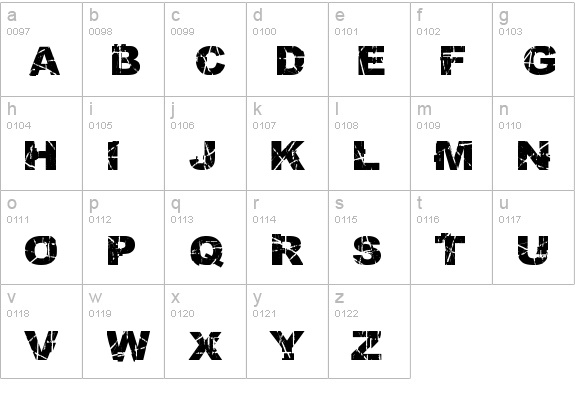
Skratch Punk Font Details
Introducing Skratch Punk, the rebellious and edgy font that will bring an instant punk-rock vibe to your designs! This font is all about breaking the rules, embracing individuality, and making a bold statement. With its jagged and distressed letterforms, Skratch Punk is the perfect choice for creating designs that scream attitude and nonconformity. But what makes Skratch Punk even more exciting is that it is available for free! Yes, you read that right - this amazing font can be downloaded without any cost. FontsMarket.com is the place to go to get your hands on this rebellious typeface. Simply head over to the website, and you can freely download Skratch Punk to start adding that punk-rock touch to your projects. With Skratch Punk, you can create eye-catching logos, album covers, posters, t-shirt designs, and more. Its distressed and grungy style adds a raw and authentic feel to any design, making it ideal for bands, clubs, and brands that want to stand out from the crowd. Let your creativity run wild with this free font and let your designs scream punk-rock passion. So, what are you waiting for? Don't miss out on the opportunity to download Skratch Punk for free at FontsMarket.com and unleash the rebellious spirit of punk in your designs. Get ready to make a statement that will leave a lasting impression!